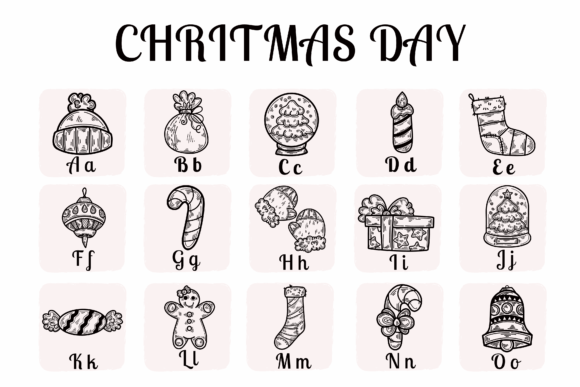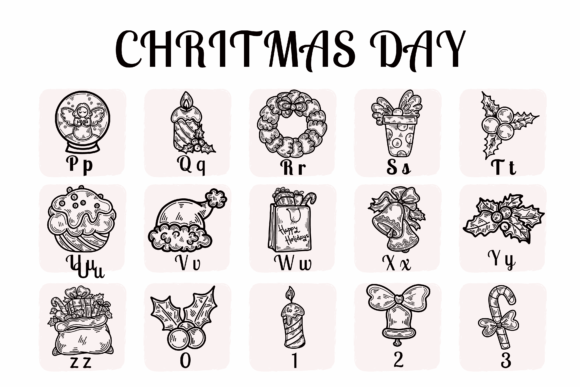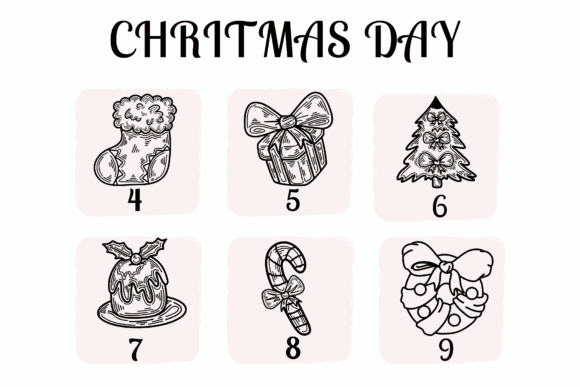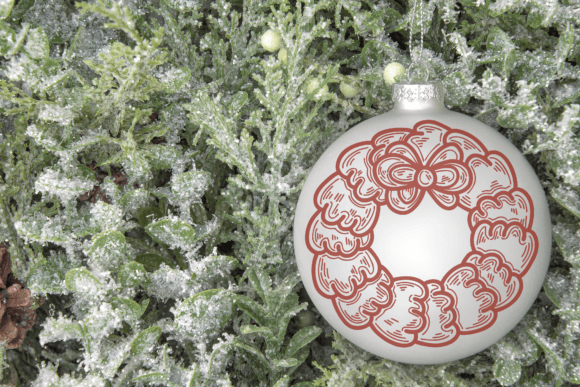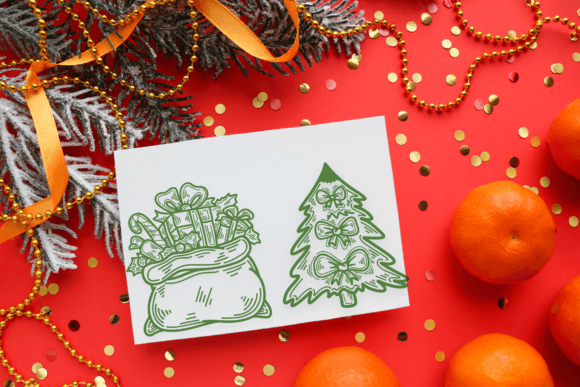
Christmas Day Font: A Festive Dingbats Font for Your Creative Projects
Are you looking for a unique and festive font to add a touch of Christmas magic to your creative projects? Look no further than the Christmas Day Font, a delightful dingbats font with a charming sketch style. This versatile font is perfect for designers, crafters, and DIY enthusiasts who want to add a personal touch to their wedding invitations, decorations, logos, and other creative endeavors.
What is Christmas Day Font?
Christmas Day Font is a dingbats font that features a beautiful sketch style, reminiscent of hand-drawn illustrations. The font is designed to evoke the spirit of Christmas, with a range of festive symbols, icons, and decorations that can be used to add a touch of holiday cheer to your projects. From snowflakes and holly leaves to Christmas trees and stockings, this font has everything you need to create stunning and festive designs.
How to Use Christmas Day Font
Christmas Day Font is incredibly easy to use, and can be incorporated into a wide range of creative projects. Here are just a few ideas to get you started:
- Wedding Invitations: Add a touch of festive flair to your wedding invitations, save-the-dates, and thank-you cards with Christmas Day Font.
- DIY Crafts: Use Christmas Day Font to create custom decorations, gift tags, and cards for your holiday crafts.
- Decorations: Create custom signs, banners, and garlands with Christmas Day Font to add a personal touch to your holiday decor.
- Logos and Branding: Use Christmas Day Font to create festive logos and branding materials for your business or personal projects.
Features of Christmas Day Font
Christmas Day Font has a range of features that make it the perfect choice for designers and crafters. Here are just a few of the benefits of using this amazing font:
- Unique Sketch Style: Christmas Day Font features a charming sketch style that adds a personal touch to your designs.
- Festive Symbols: The font includes a range of festive symbols, icons, and decorations that are perfect for the holiday season.
- Versatile: This font can be used for a wide range of creative projects, from wedding invitations to DIY crafts and decorations.
Tips for Using Christmas Day Font
Here are a few tips for using Christmas Day Font to get the most out of this amazing font:
- Experiment with Different Sizes: Try using Christmas Day Font in different sizes to create a range of effects, from delicate and intricate to bold and dramatic.
- Combine with Other Fonts: Combine Christmas Day Font with other fonts to create a unique and eye-catching design.
- Use with Images: Use Christmas Day Font with images and illustrations to create stunning and festive designs.